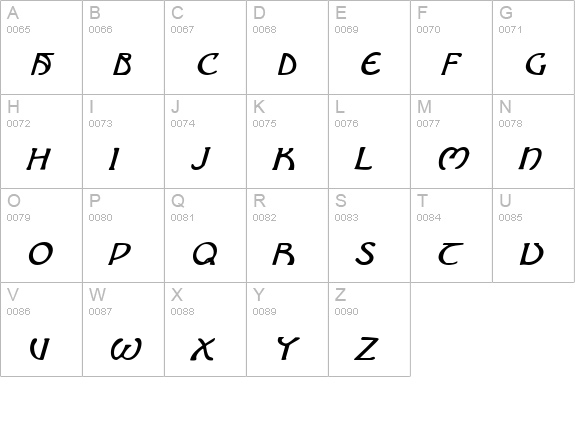
Brin Athyn Italic is a distinctive, italic variant in the Brin typeface family \xE2\x80\x94 well suited to design and typography projects.
The Brin Athyn Italic font exudes elegance and sophistication with its sleek and stylish design. Its slanted and flowing letterforms add a touch of flair to any project, making it perfect for adding a touch of modernity to your designs. Whether you're creating invitations, logos, or branding materials, Brin Athyn Italic is sure to make a statement. The best part? This stunning font is available for free download at FontsMarket.com, allowing you to elevate your designs without breaking the bank. Don't miss out on the opportunity to add Brin Athyn Italic to your font collection and take your projects to the next level.